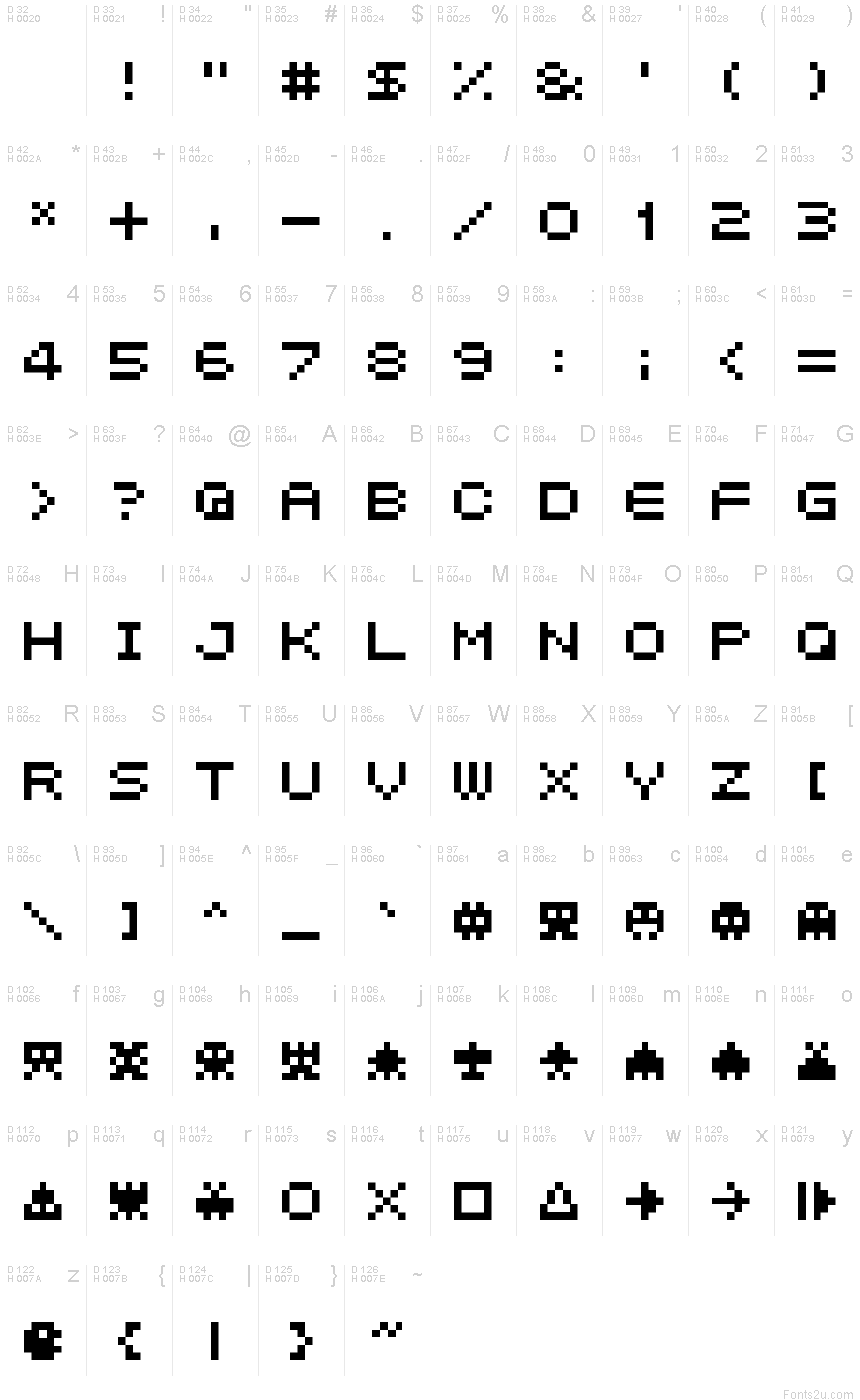
04b_21
04b_21 font by Yuji Oshimoÿo is a free bitmap pixel font that feels ripped straight from a tiny CRT screen. Its chunky, square modules lock into a tight grid, giving every word that satisfying, low-res snap you associate with classic consoles and early PC games. The spacing is compact but clean, so even at very small sizes the text holds together like a crisp row of pixels on an arcade scoreboard.
This free font shines on retro game HUDs, score counters, pixel-art menus, synthwave posters, and glitchy stream overlays. Using 04b_21 instantly signals “8‑bit” without needing extra effects, making it a natural fit for nostalgic branding and techy event graphics. For long text, pair it with a smooth modern sans set larger, and reserve 04b_21 for titles, labels, and UI elements that need that pure arcade energy.